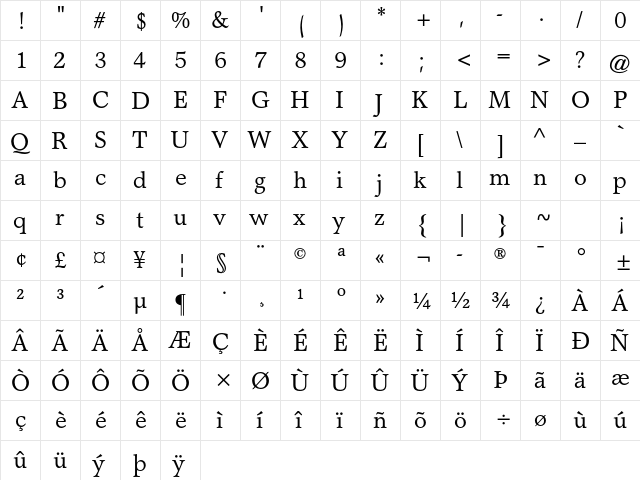
Garth Graphic Std Regular
| Designer | John Matt, Renee LeWinter, Constance Blanchard |
Design Context for Garth Graphic Std Typeface
Garth Graphic Std is a composed and adaptable typeface that performs quietly and consistently across a wide range of design contexts.